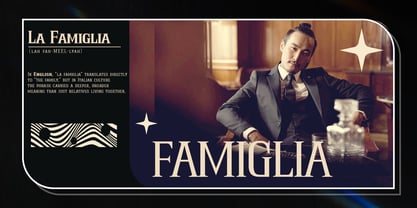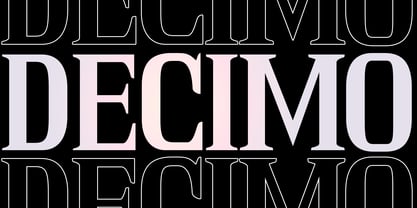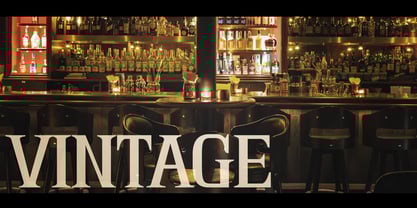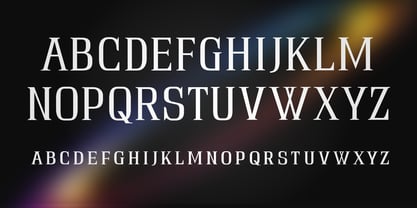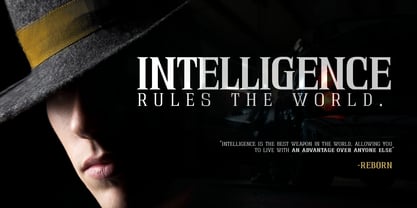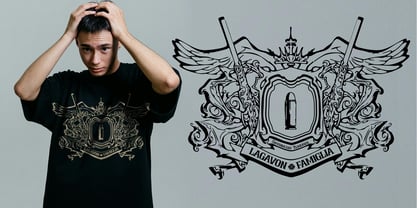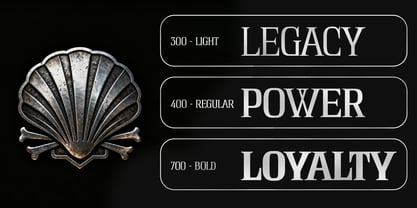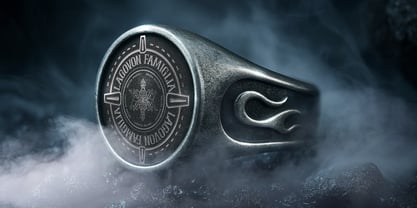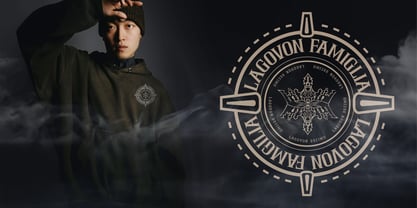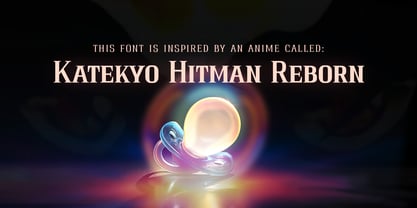
Lagovon
by Lurinzu Studios
The Lagovon Font Family was designed by Lorenzo Gabriel Martinez and published by Lurinzu Studios. Lagovon contains 3 styles and family package options. More about this family
Lagovon is a bold, condensed serif typeface inspired by the mafia-styled, cinematic energy of Katekyo Hitman Reborn. Designed with vintage noir, certificates, and classic crime-film aesthetics in mind, Lagovon delivers an authoritative, elegant, and high-impact presence.  Perfect for designers seeking a strong display font with anime-inspired  flair and a refined, old-world edge.
Designers: Lorenzo Gabriel Martinez
Foundry: Lurinzu Studios